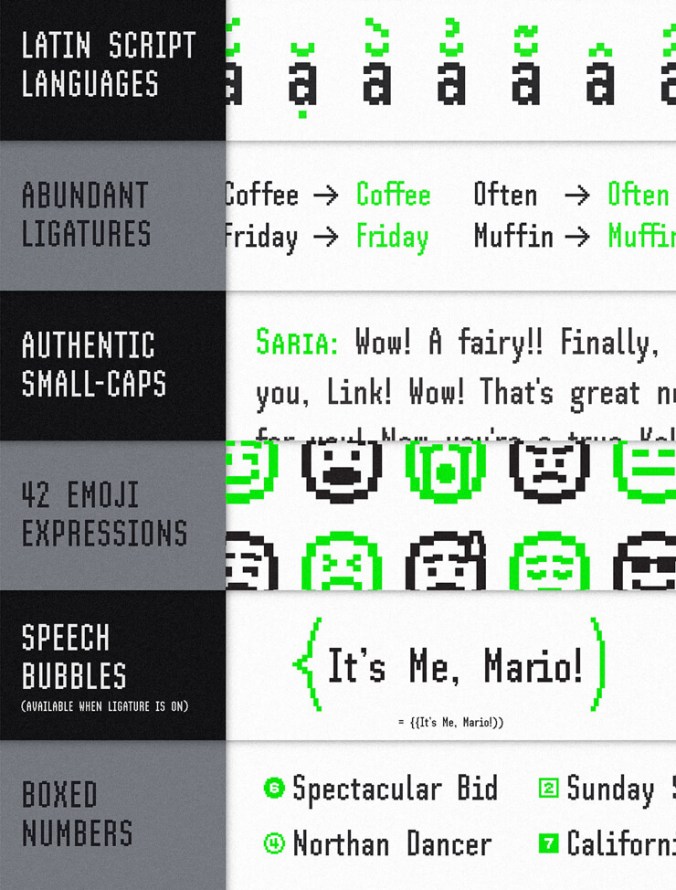
SH Pinscher: A free Bitmap Font
SH Pinscher is slim, elegant, focused, fun and free bitmap font, designed by talented Chinese designer – “Tinghao Hu”.
This is a bit more typographic than the typical bitmap fonts out in the wild, with its ligatures, small-cap, symbols, supported languages and even emojis.